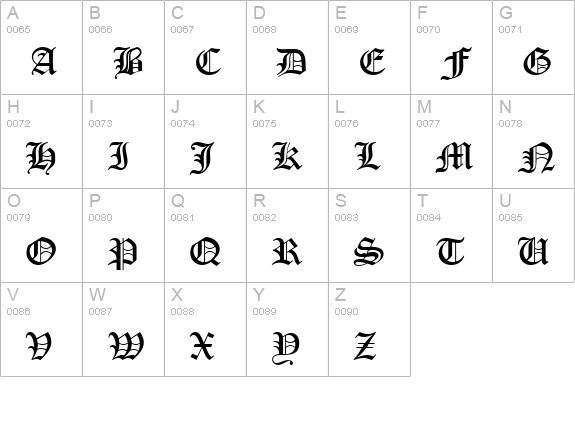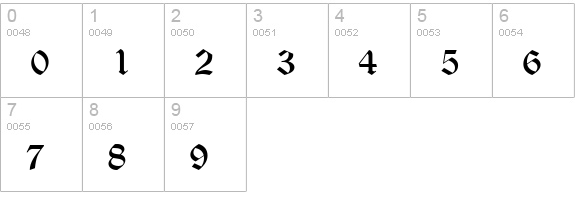
Ottoman-Regular Font Details
Ottoman-Regular is the standard, neutral variant in the Ottoman typeface family \xE2\x80\x94 well suited to general body text, paragraphs, and standard typographic work.
The Ottoman-Regular font exudes elegance and sophistication with its classic and timeless style. This versatile font is perfect for a wide range of design projects, from elegant invitations to professional business documents. The clean lines and balanced proportions of Ottoman-Regular make it easy to read and pleasing to the eye. Best of all, Ottoman-Regular is available for free download at FontsMarket.com. Whether you're a designer looking for a new go-to font or a hobbyist wanting to add a touch of class to your projects, Ottoman-Regular is the perfect choice. Download this exquisite font today and elevate your designs to the next level.